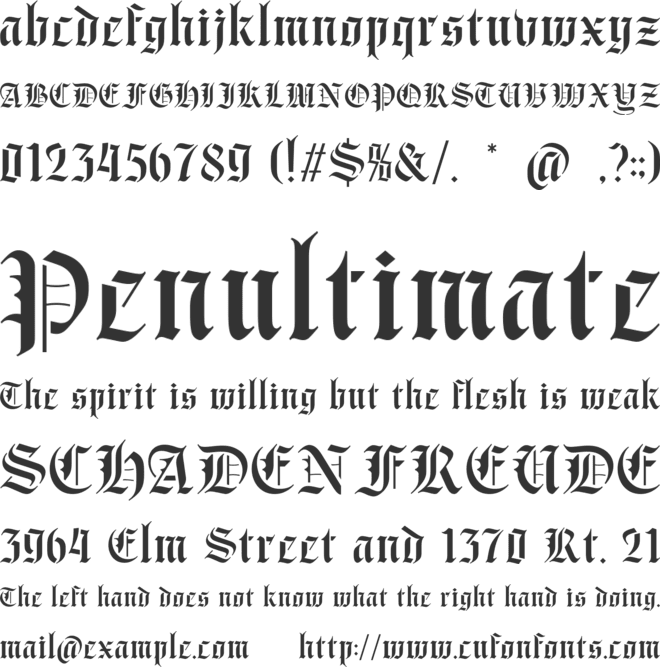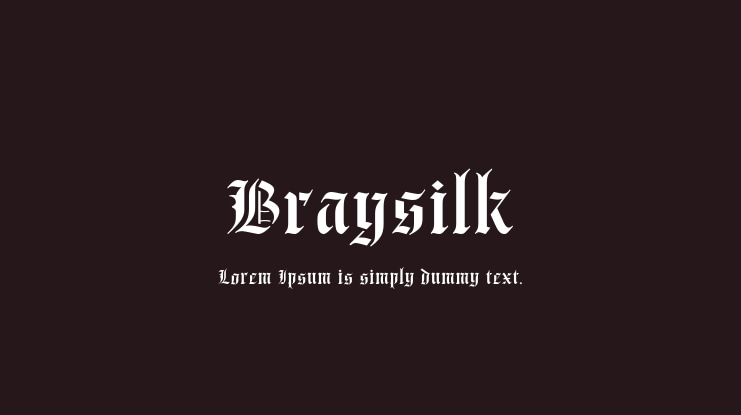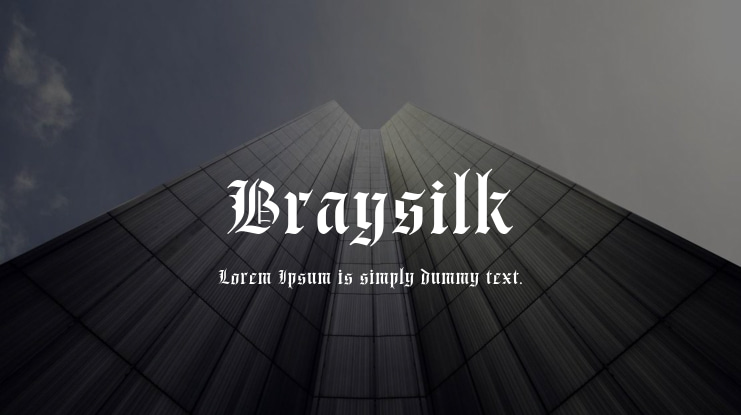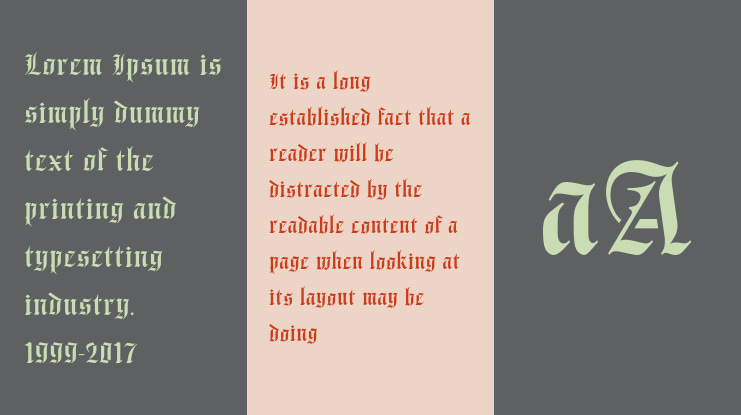
Braysilk Font
Braysilk – Blackletter Stencil Typeface
Braysilk is a masterfully crafted blackletter stencil typeface that fuses historical gothic influences with a contemporary industrial twist. Designed for those who seek a bold and rebellious aesthetic, this font is ideal for branding, album covers, tattoos, posters, and high-impact visual projects. With its sharp, intricate details and distinct stencil cuts, Braysilk captures the essence of both tradition and modern edge.